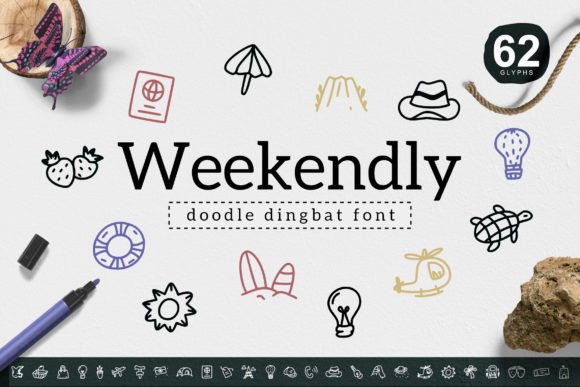
Prepare yourself for a typographic journey unlike any other with Weekendly Font, the playful and practical dingbats font that will add a touch of whimsy to your creative projects. Unleash your imagination and let the boundless possibilities of Weekendly transform your designs into captivating expressions of art.
Every element of Weekendly Font is meticulously crafted to bring a smile to your face and elevate your designs to new heights. Its playful strokes and charming symbols capture the essence of fun and lightheartedness, making it the perfect choice for adding a dash of personality to your stickers, posters, t-shirts, cards, and even apparel graphics.
With Weekendly, the possibilities are endless. Let your creativity soar as you explore the world of symbols, transforming ordinary text into extraordinary visual statements. Create captivating social media posts that demand attention, design eye-catching logos that leave a lasting impression, or craft personalized invitations that set the tone for unforgettable events.
Weekendly Font is more than just a font; it's an invitation to let your imagination run wild and create designs that resonate with your audience. Unlock the power of visual storytelling and captivate your viewers with every stroke. Join the growing community of creative enthusiasts who have embraced Weekendly and experienced the joy of transforming their designs into works of art.